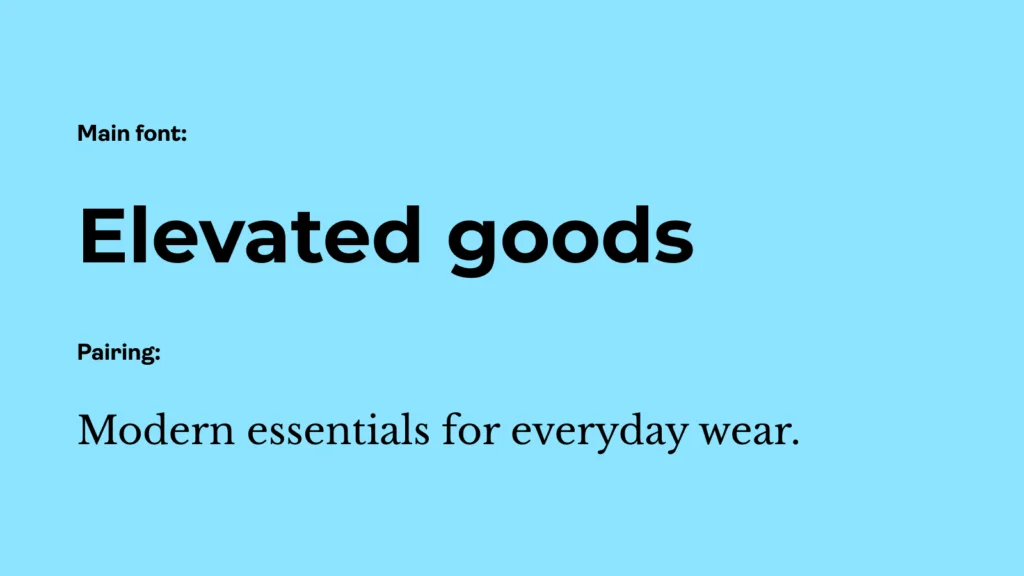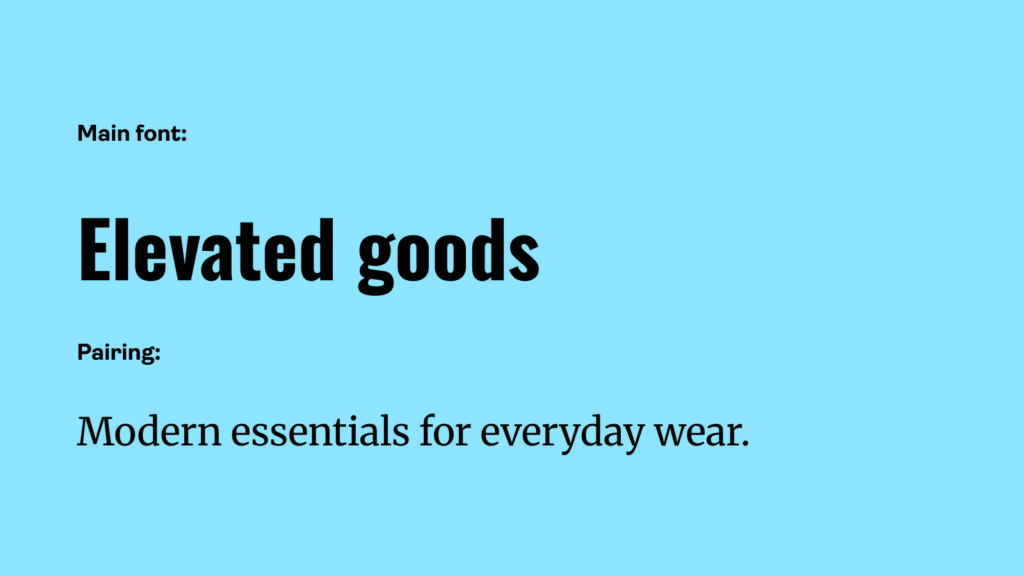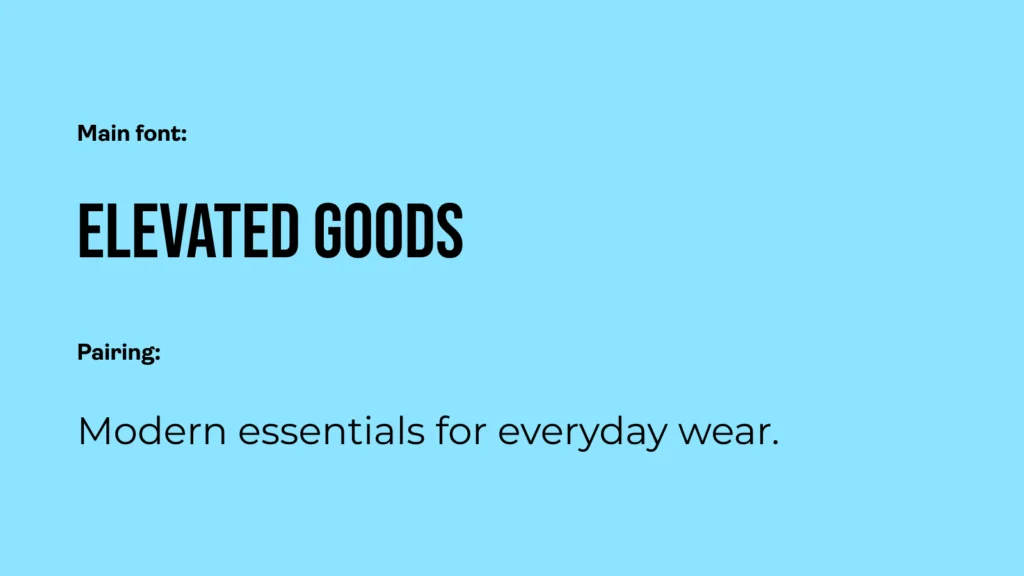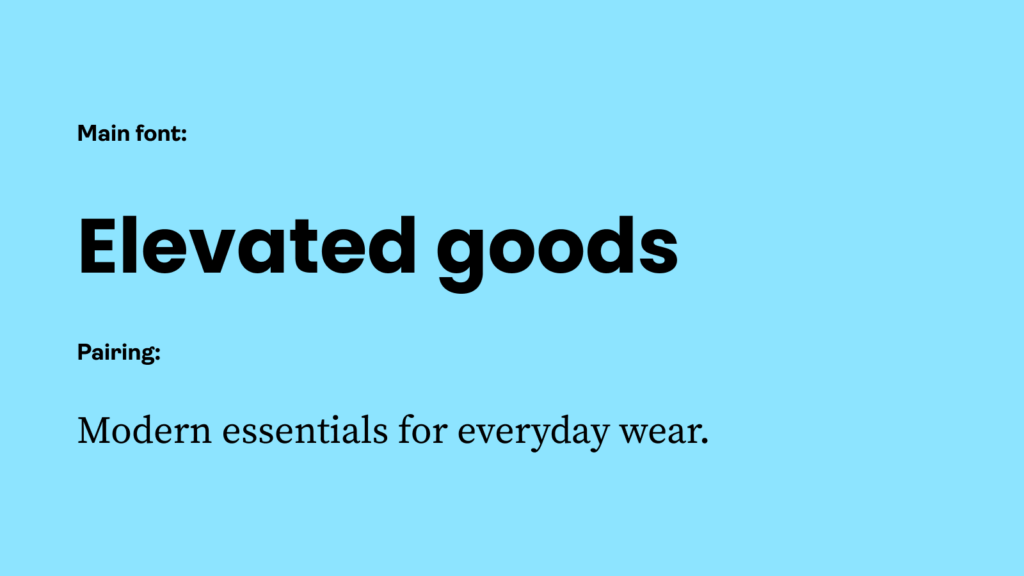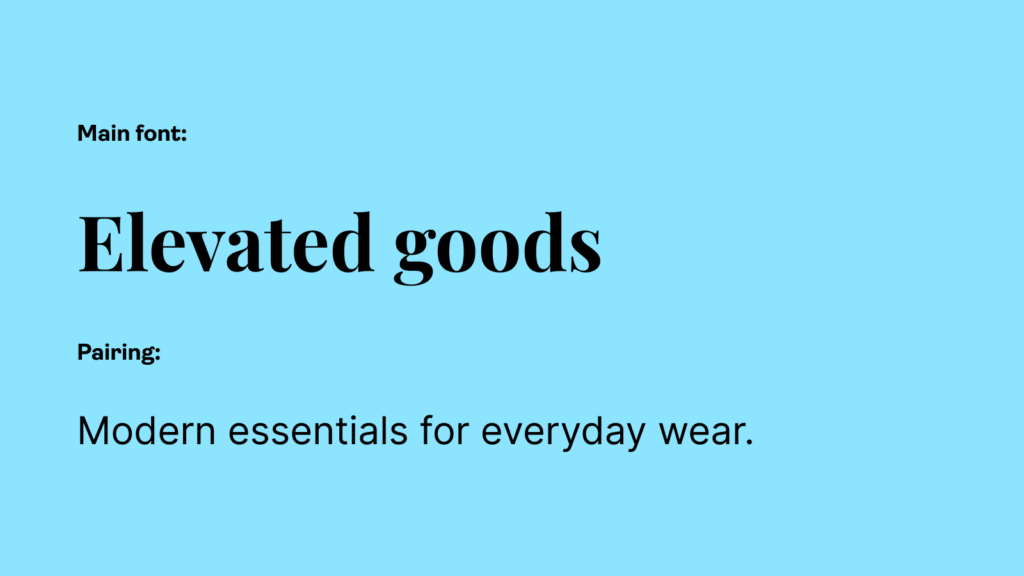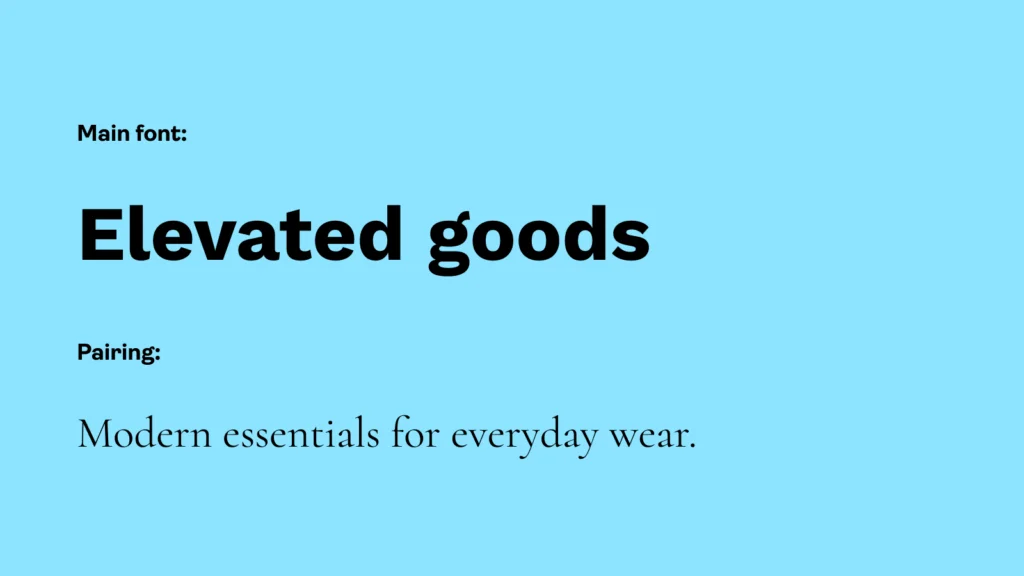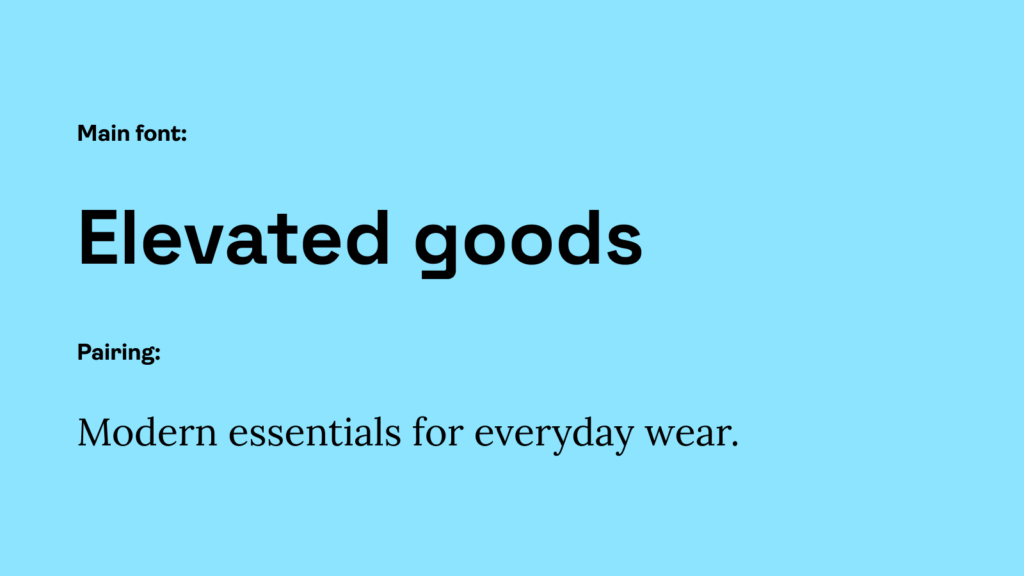
The best fonts for t-shirts do more than fill space. They set the tone before anyone reads a single word.
From sleek sans serifs for minimalist branding to flowing script fonts for seasonal collections, the right typeface can make or break a shirt design.
Not sure where to start? Here are 15 of the best t-shirt fonts, handpicked for every style and niche.
What makes a good t-shirt font?
A good t-shirt font should:
• Be highly legible. Shirts are typically viewed from several feet away, not up close like a screen. Whether you’re using sans-serif or handwritten fonts, letters need open, uncrowded shapes to maintain excellent readability.
• Hold up in print. Thin strokes can bleed into the fabric under heat and pressure, especially on dark backgrounds. It’s best to use regular, medium-weight, or bold options to help maintain their shape throughout the process.
• Work at any size. The best t-shirt font stays readable whether it spans a full chest or scales down to a sleeve. For embroidery, make sure the text height is at least 0.25” – smaller sizes will lose definition in the stitching.
• Guide the eye. Pairing a bold, attention-grabbing typeface with a simpler secondary option creates visual hierarchy, so viewers know what to read first.
Now that you know what to look for, here are 15 t-shirt font ideas that we’ve selected based on print performance and pairing potential.
15 Best fonts for shirts in 2026
1. Roboto
A Roboto and Roboto Slab font pairing: an example of the best fonts for t-shirts.
Style: Sans-serif font
Best for: Tech businesses, minimalist designs
Why it works: Roboto’s clean lines, open shapes, and contemporary letterforms work well for supporting text or designs where you want the message to feel modern but not overpowering. Choose bold weights to prevent letters from disappearing on fabric.
Font pairing: Roboto Slab
2. Montserrat
A Montserrat and Libre Baskerville font pairing: an example of the best fonts for t-shirts.
Style: Sans-serif font
Best for: Streetwear, lowercase typography
Why it works: Montserrat’s wide letterforms give text a bold feel, making it the perfect font for shirts built around a simple typography design. Add slight letter spacing and use bold weights to improve print clarity.Font pairing: Libre Baskerville
3. Oswald
An Oswald and Merriweather font pairing: an example of the best fonts for t-shirts.
Style: Sans-serif font
Best for: Athletic designs, logo-style text
Why it works: Oswald’s condensed letterforms deliver strong visual impact without taking up much horizontal space. Use short phrases or stacked text to keep the design readable.
Font pairing: Merriweather
4. Bebas Neue
A Bebas Neue and Montserrat font pairing: an example of the best fonts for t-shirts.
Style: Sans-serif font
Best for: Statement tees, streetwear
Why it works: Bebas Neue is all caps, so every letter grabs attention without needing supporting elements. For chest prints, keep the text short – long phrases can feel cramped and lose impact.Font pairing: Montserrat
5. Poppins
A Poppins and Source Serif Pro font pairing: an example of the best fonts for t-shirts.
Style: Sans-serif font
Best for: Lifestyle branding, modern logo tees
Why it works: Poppins’ rounded letterforms give it a relaxed vibe that suits everyday apparel. Stick to heavier weights so the message holds up well in print.
Font pairing: Source Serif Pro
6. Playfair Display
A Playfair Display and Inter font pairing: an example of the best fonts for t-shirts.
Style: Serif font
Best for: Editorial apparel, text-based designs
Why it works: Playfair Display’s bold serifs convey a timeless sophistication. Italicize the text to add an extra layer of elegance to quotes or short phrases.
Font pairing: Inter
7. Work Sans
A Work Sans and Cormorant font pairing: an example of the best fonts for t-shirts.
Style: Sans-serif font
Best for: Creative studio tees, startup merch
Why it works: Work Sans looks sleek but has enough character to reflect creativity. This cool t-shirt font is perfect for brands that want to look professional without feeling corporate.
Font pairing: Cormorant
8. Space Grotesk
A Space Grotesk and Lora font pairing: an example of the best fonts for t-shirts.
Style: Sans-serif font
Best for: Tech merch, digital brand tees
Why it works: Space Grotesk has subtle quirks in certain letterforms, giving this unique font a slightly playful touch that sets it apart from a standard sans-serif.
Font pairing: Lora
9. Pacifico
A Pacifico and Figtree font pairing: an example of the best fonts for t-shirts.
Style: Script font
Best for: Beachwear, spring and summer collections
Why it works: Pacifico’s rounded, connected strokes create a laid-back handwriting style that works beautifully for fun, summer-themed designs. Keep the text short – flowing lines lose readability quickly when overcrowded on fabric.